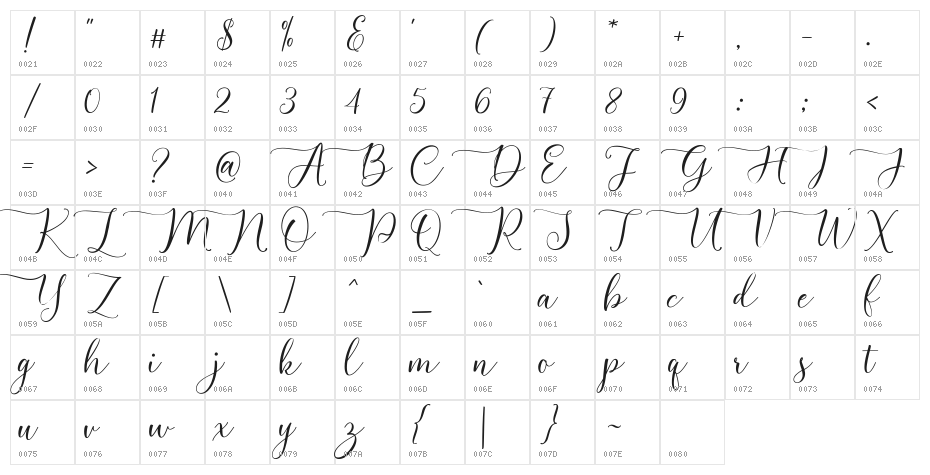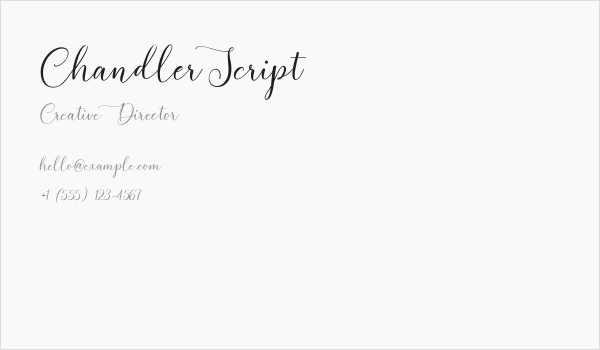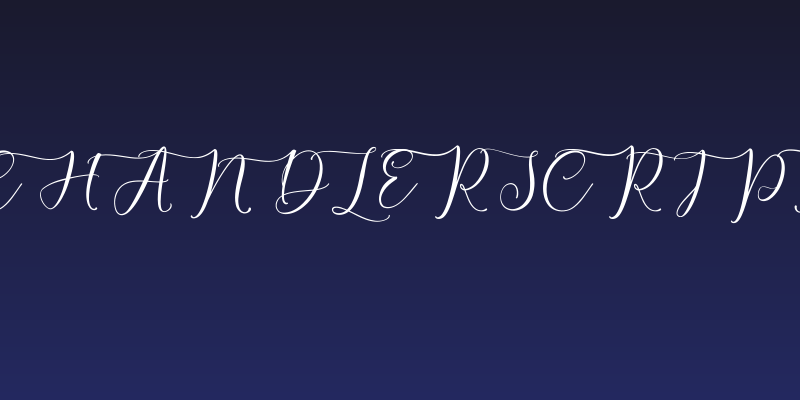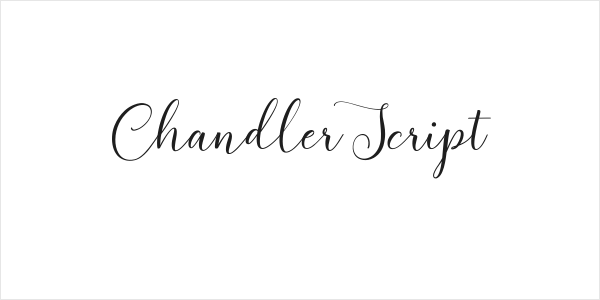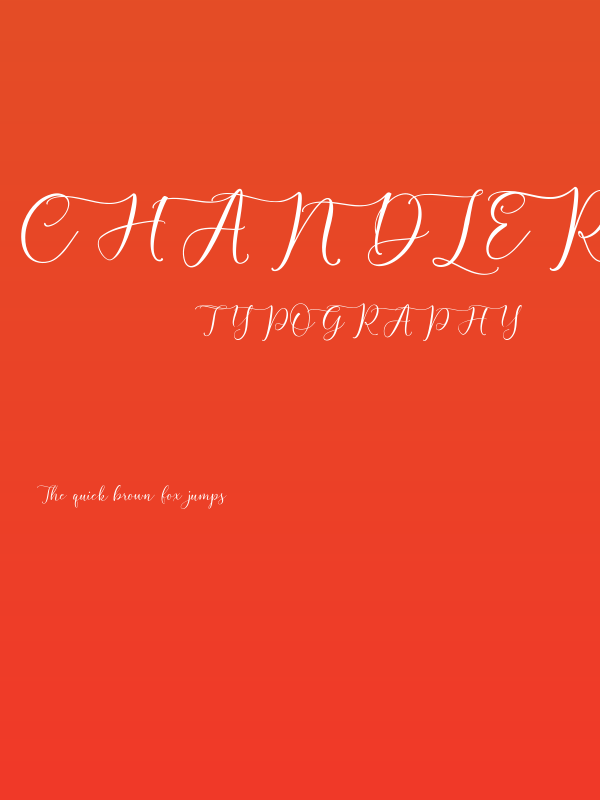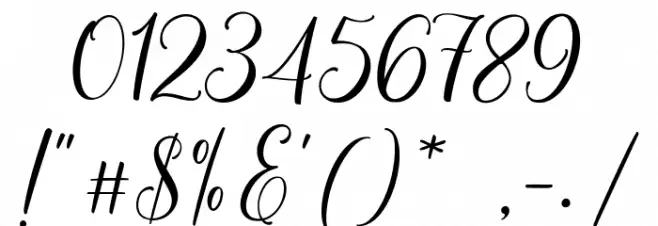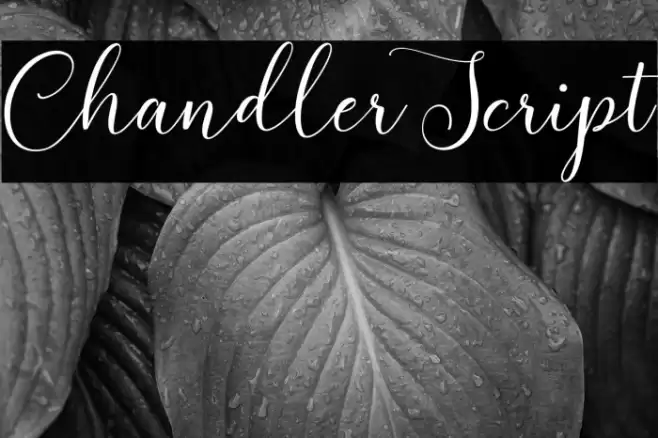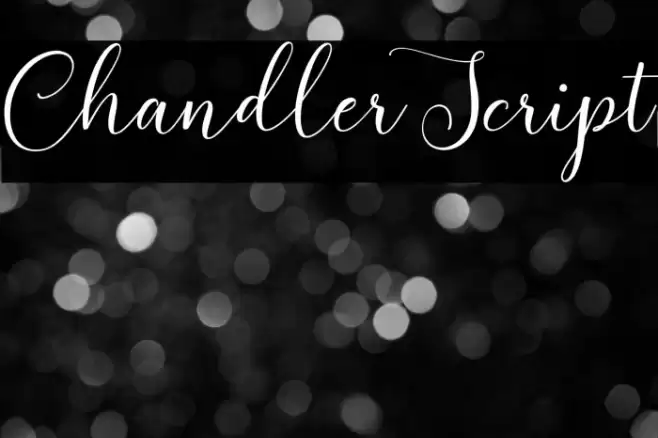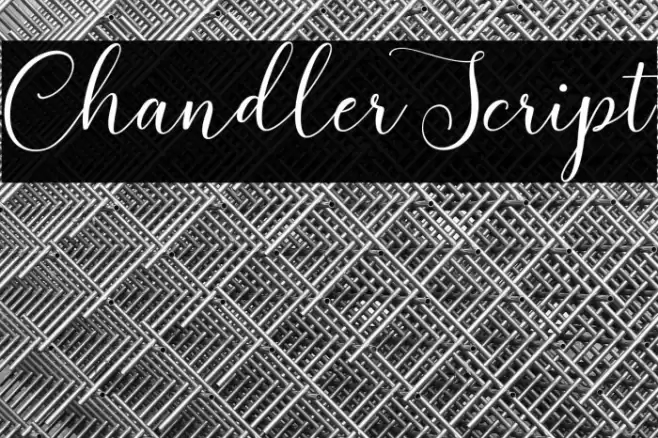
ChandlerScript Font
ChandlerScript Description
This elegant script font features flowing, cursive letterforms with a sophisticated and artistic flair. The uppercase letters are adorned with delicate swashes, adding a touch of elegance and movement. The lowercase letters maintain a consistent rhythm, with smooth connections between characters. The numerals are stylish and complement the overall script style, while the special characters are crafted to match the font's graceful aesthetic. This font is perfect for projects that require a touch of elegance and sophistication, such as wedding invitations, branding, and high-end product packaging.
| Overall Style | Elegant, Artistic |
| Proposed Projects | Ideal for wedding invitations, luxury branding, elegant product packaging, and artistic designs. |